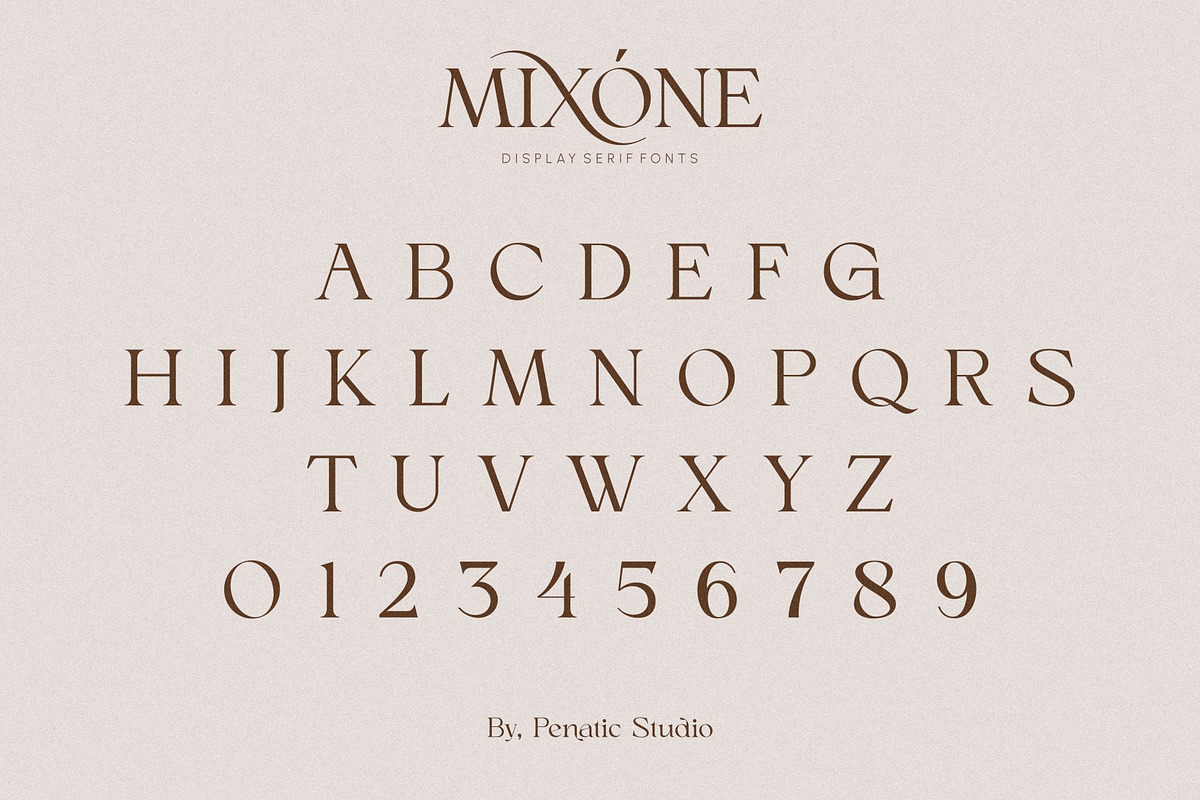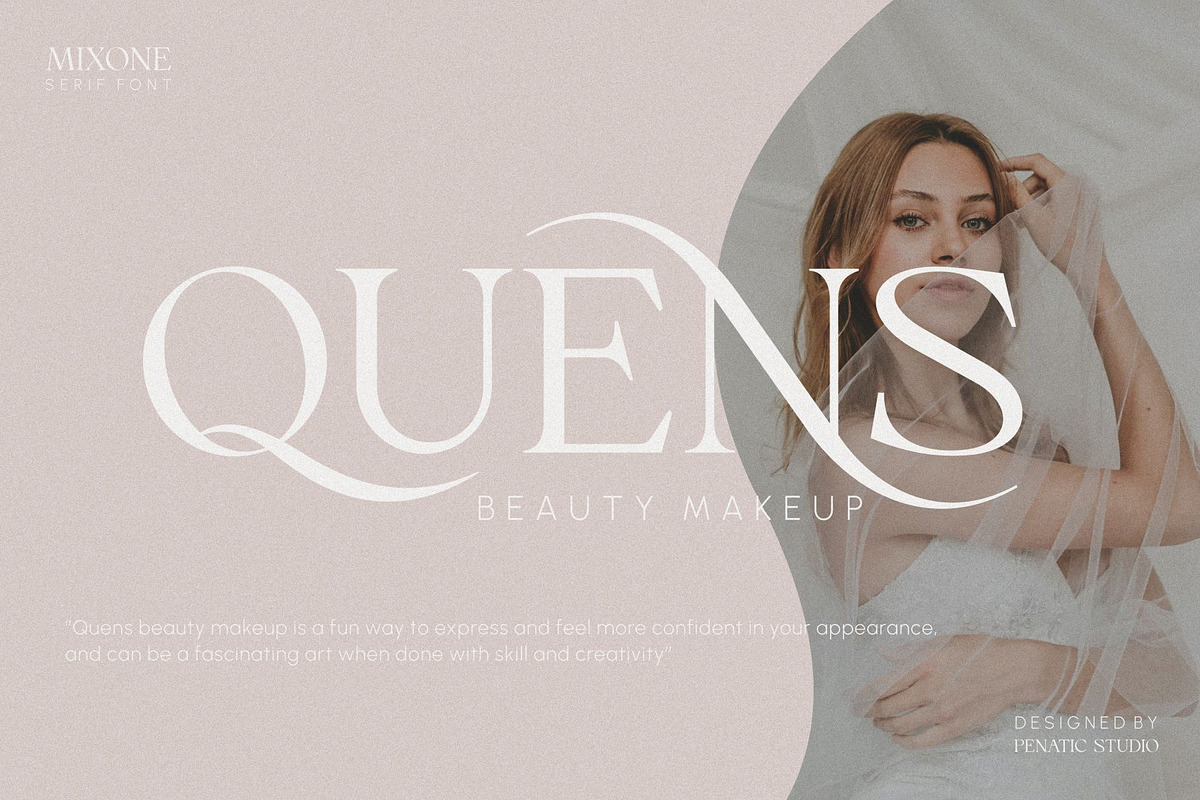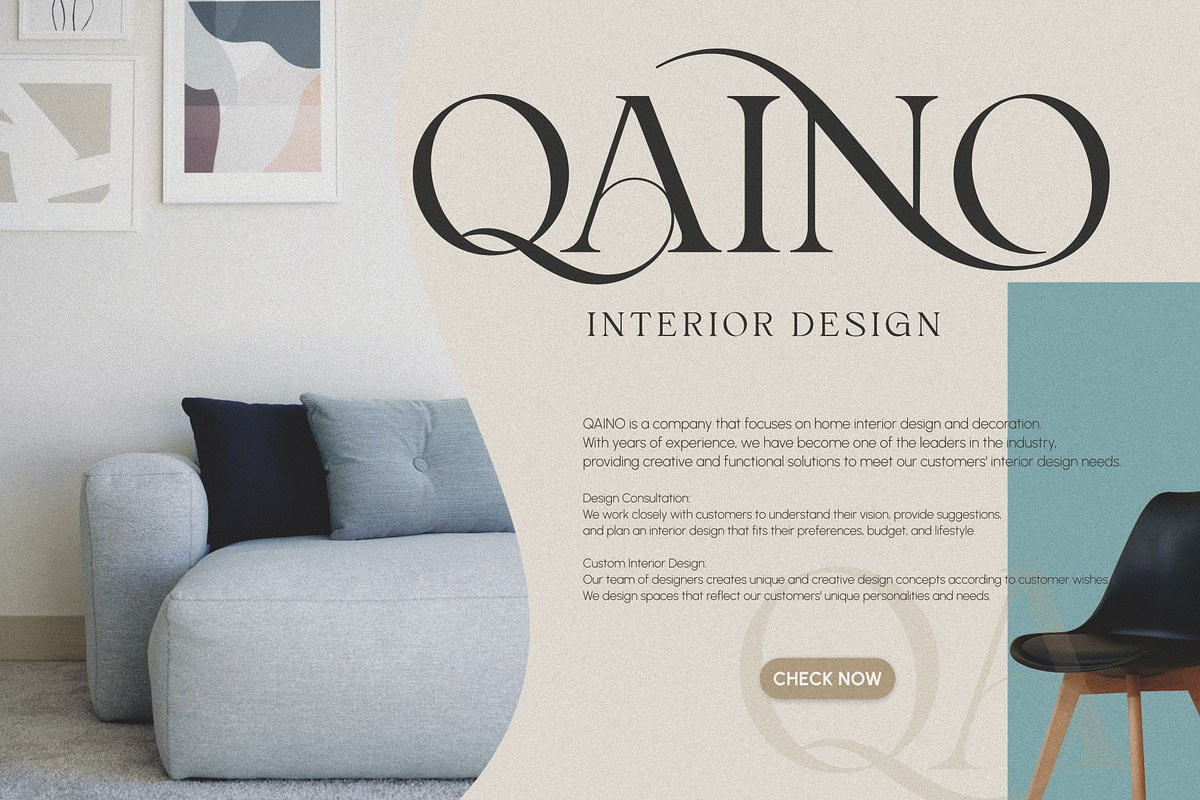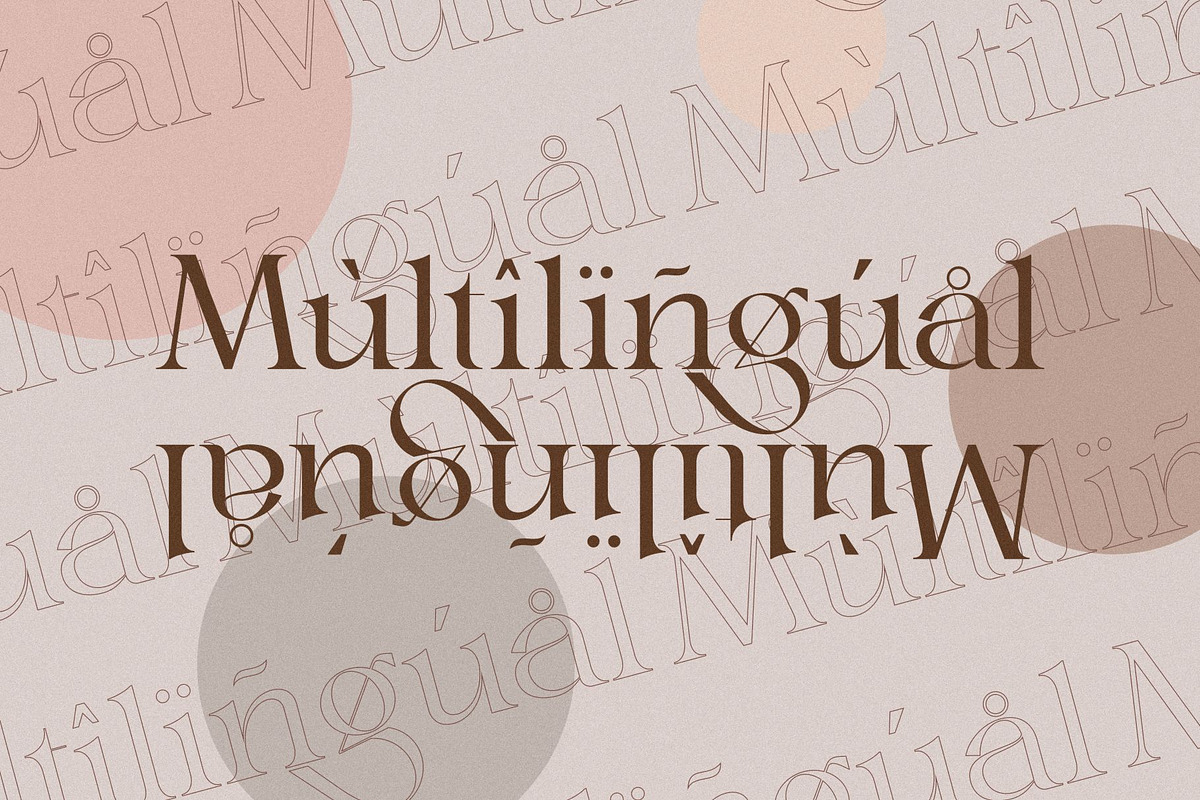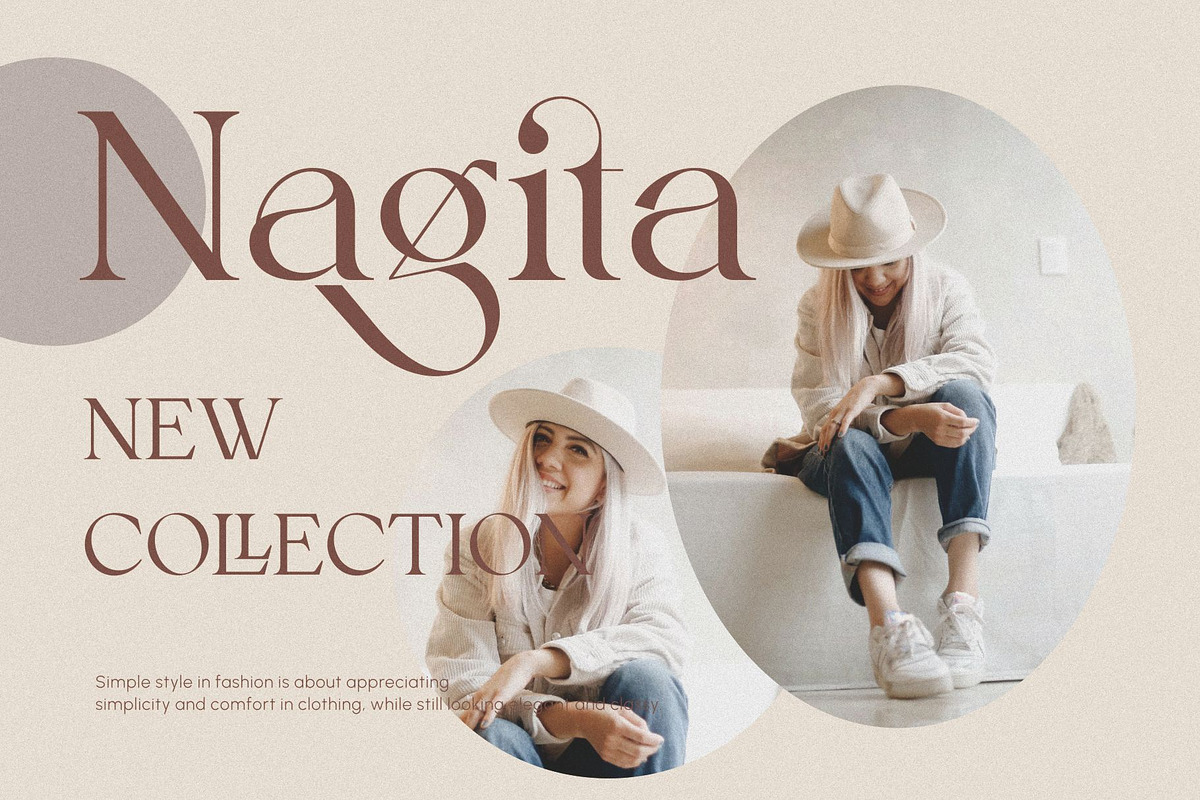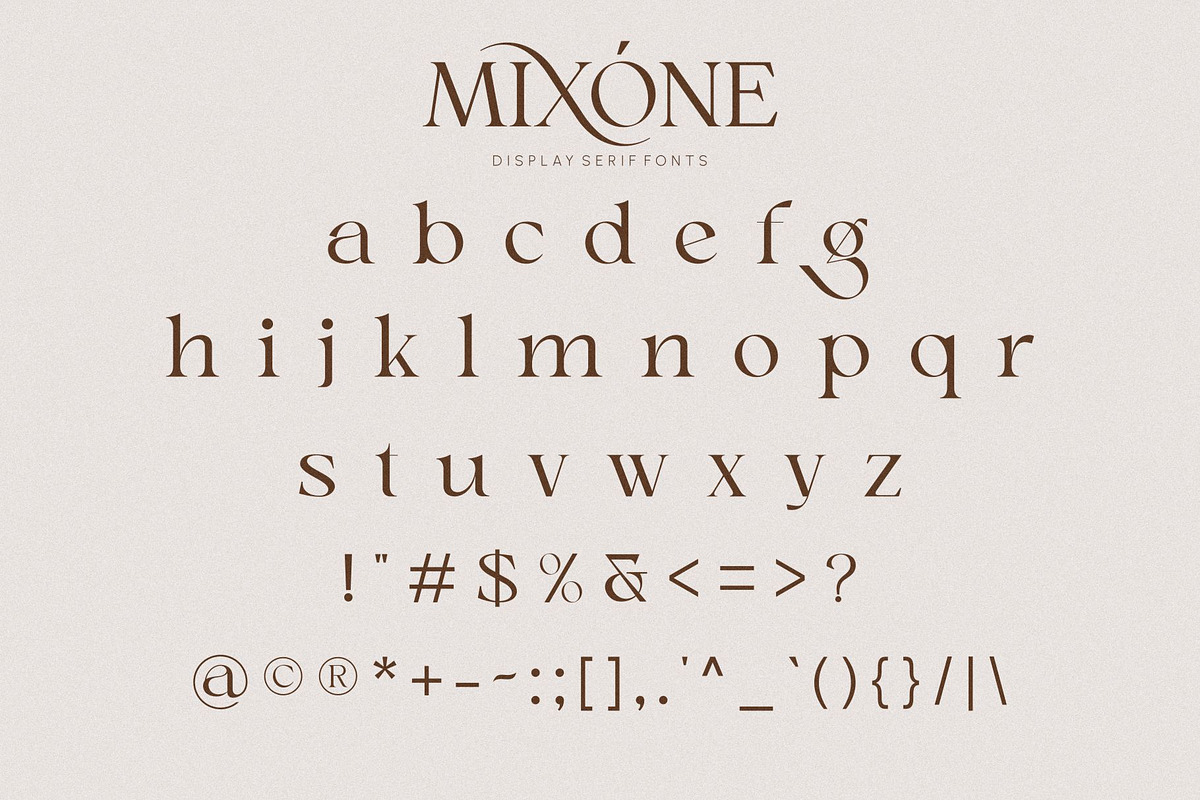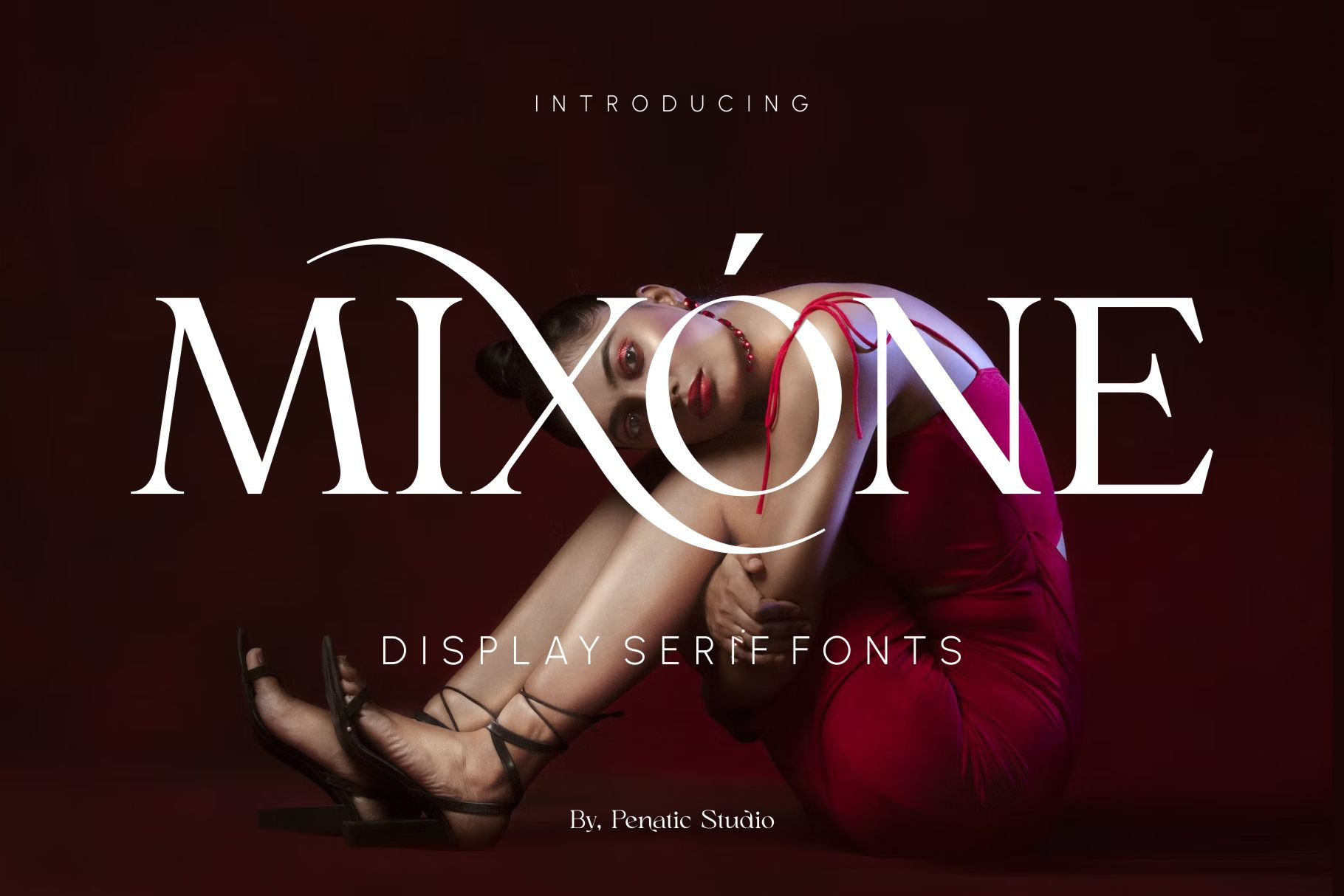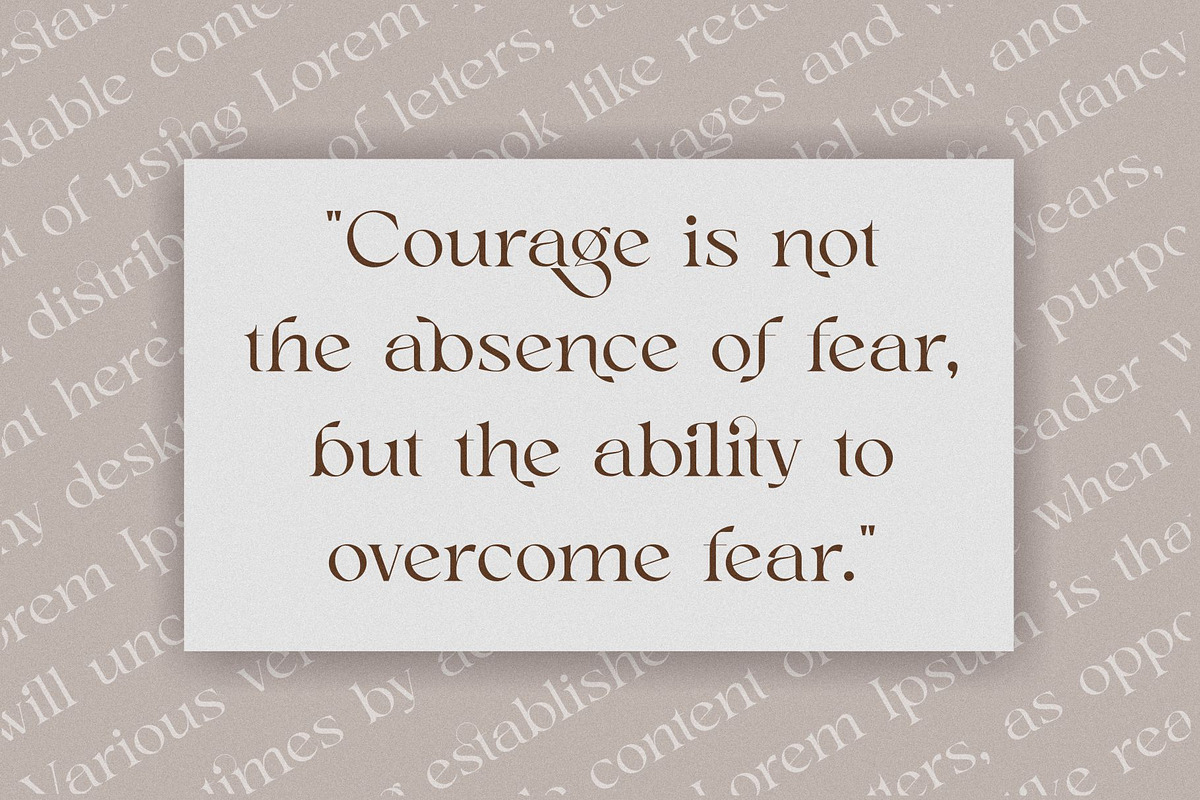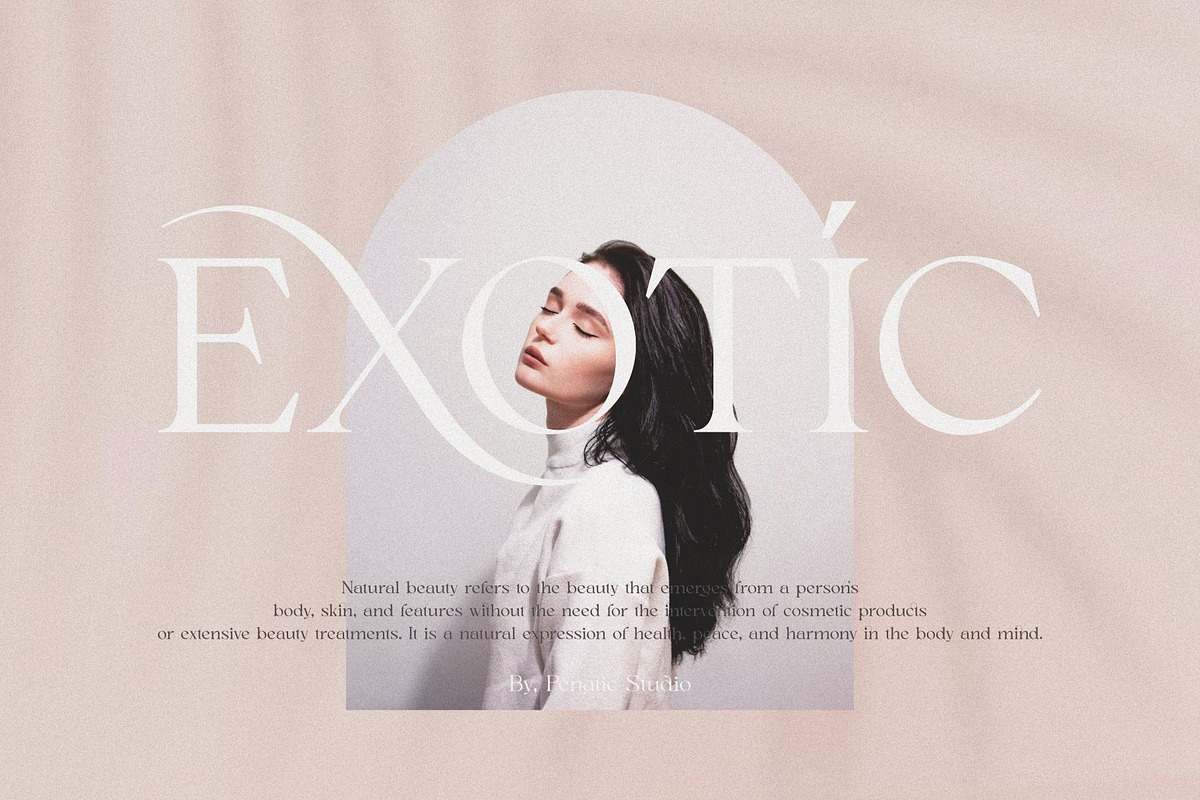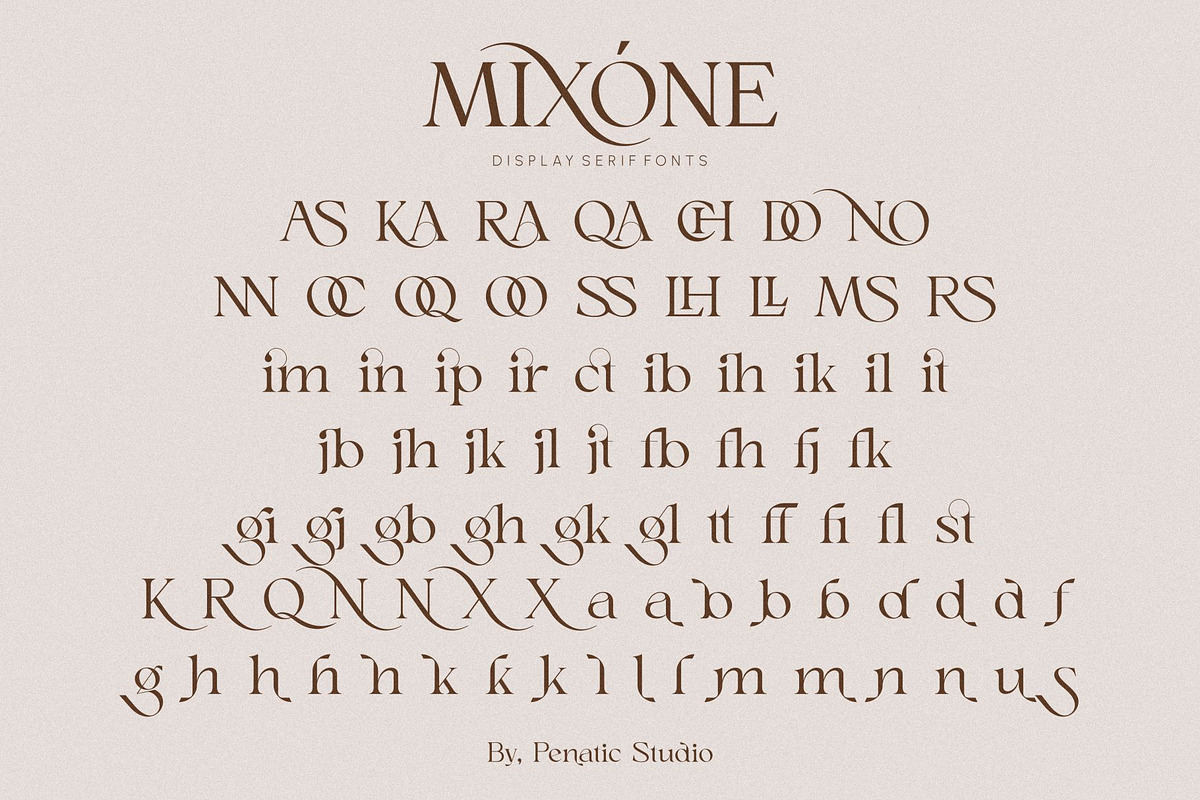
Mixone _ Display Serif Font
Mixone is a typeface or character designed with a fresh, different and innovative style and shape. These fonts can have various styles, such as modern, classic, or bold. The use of fonts can give a unique and attractive look to the project, website, or graphic design etc. With this font, you can communicate your message or brand in a fresh and original way. This is a great way to update the look and create a strong impression.
~ Unique Fonts Ligatures and Alternate